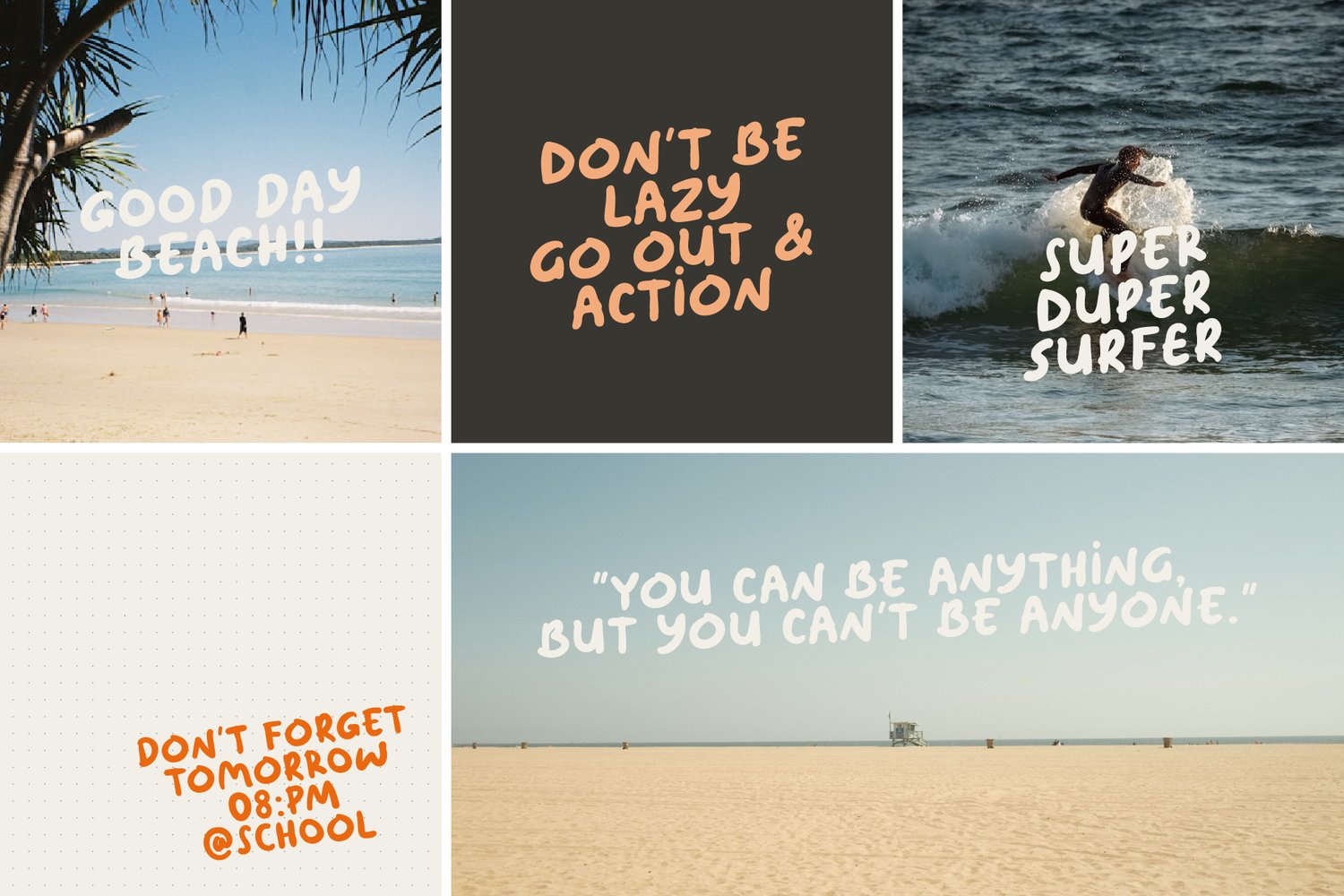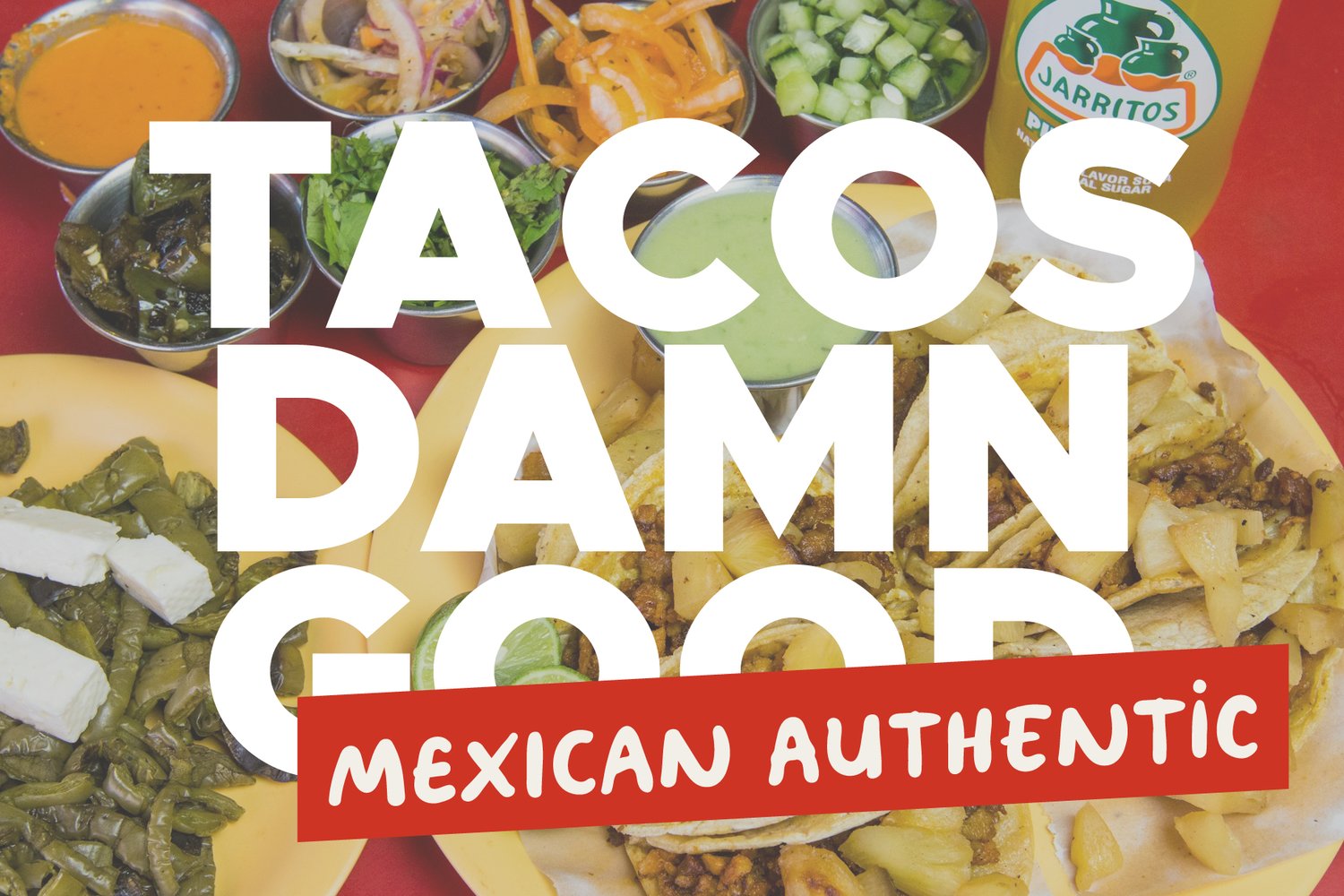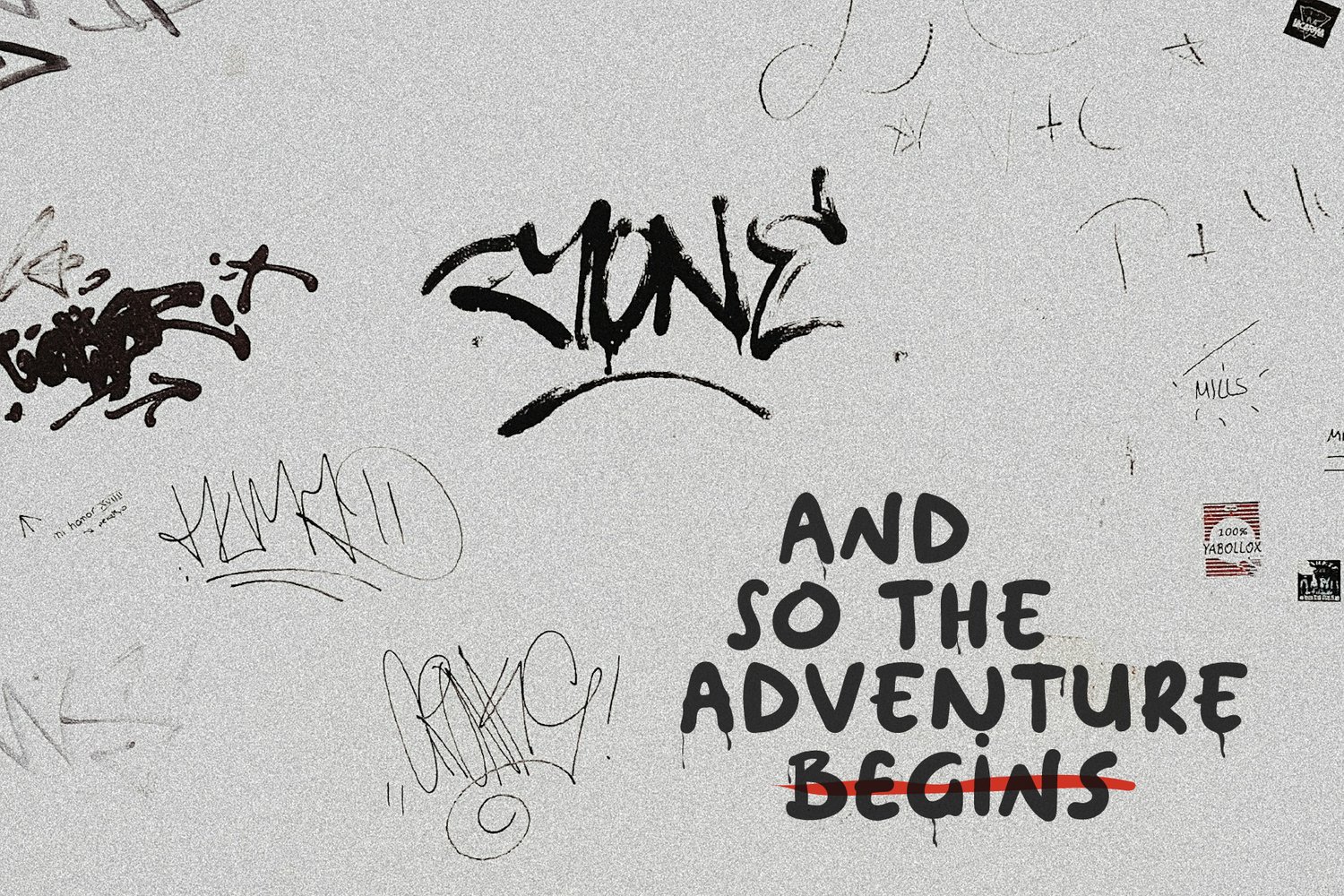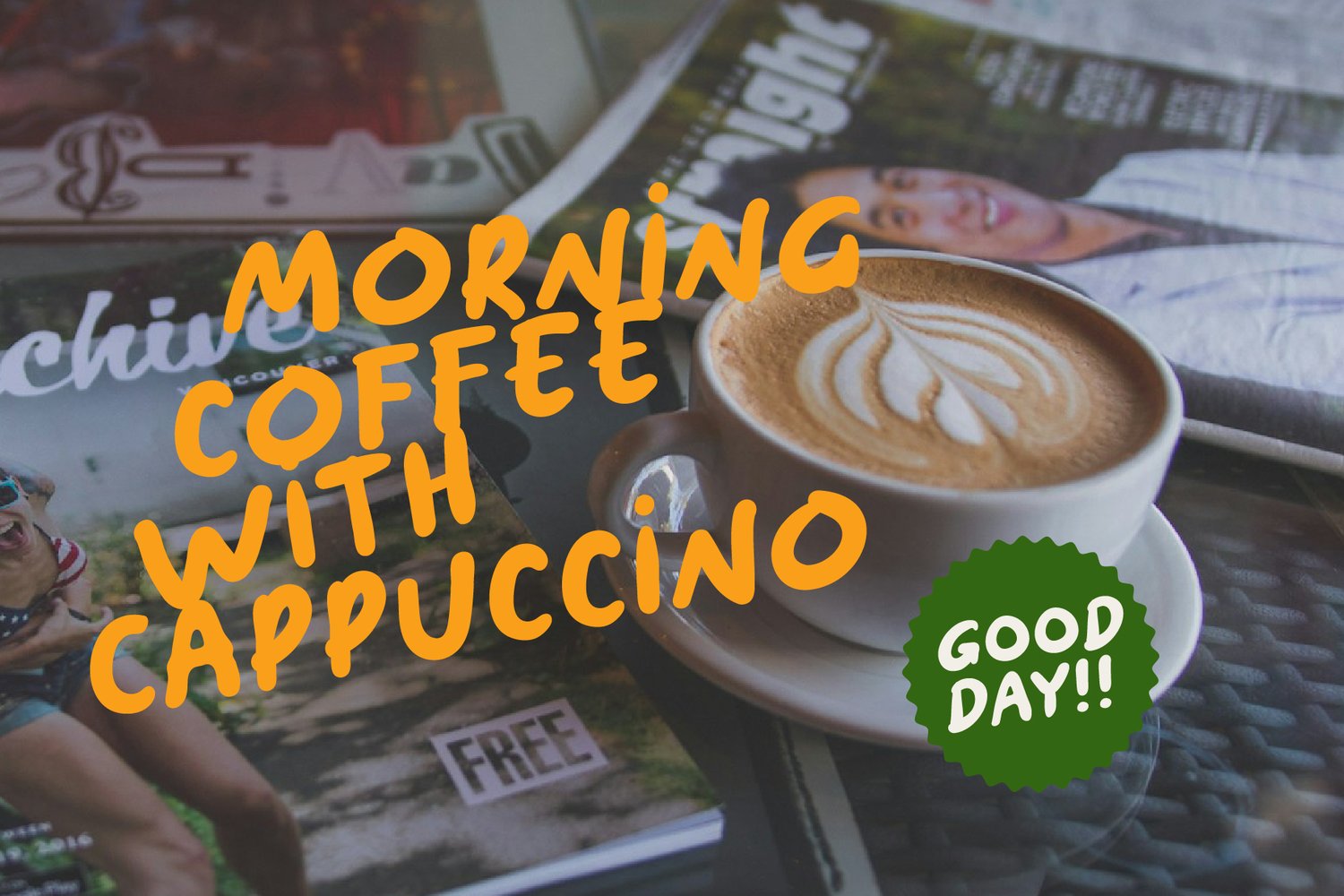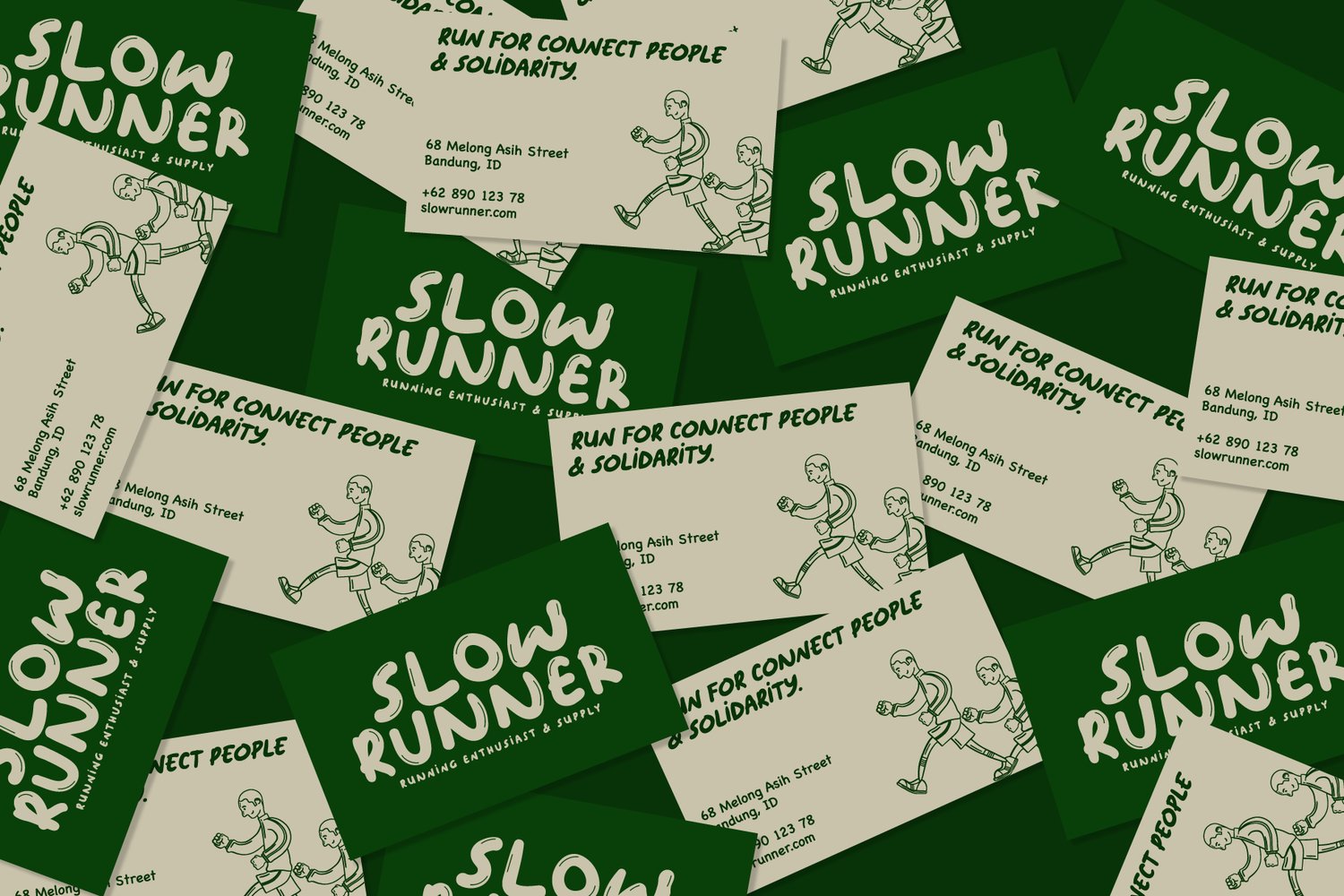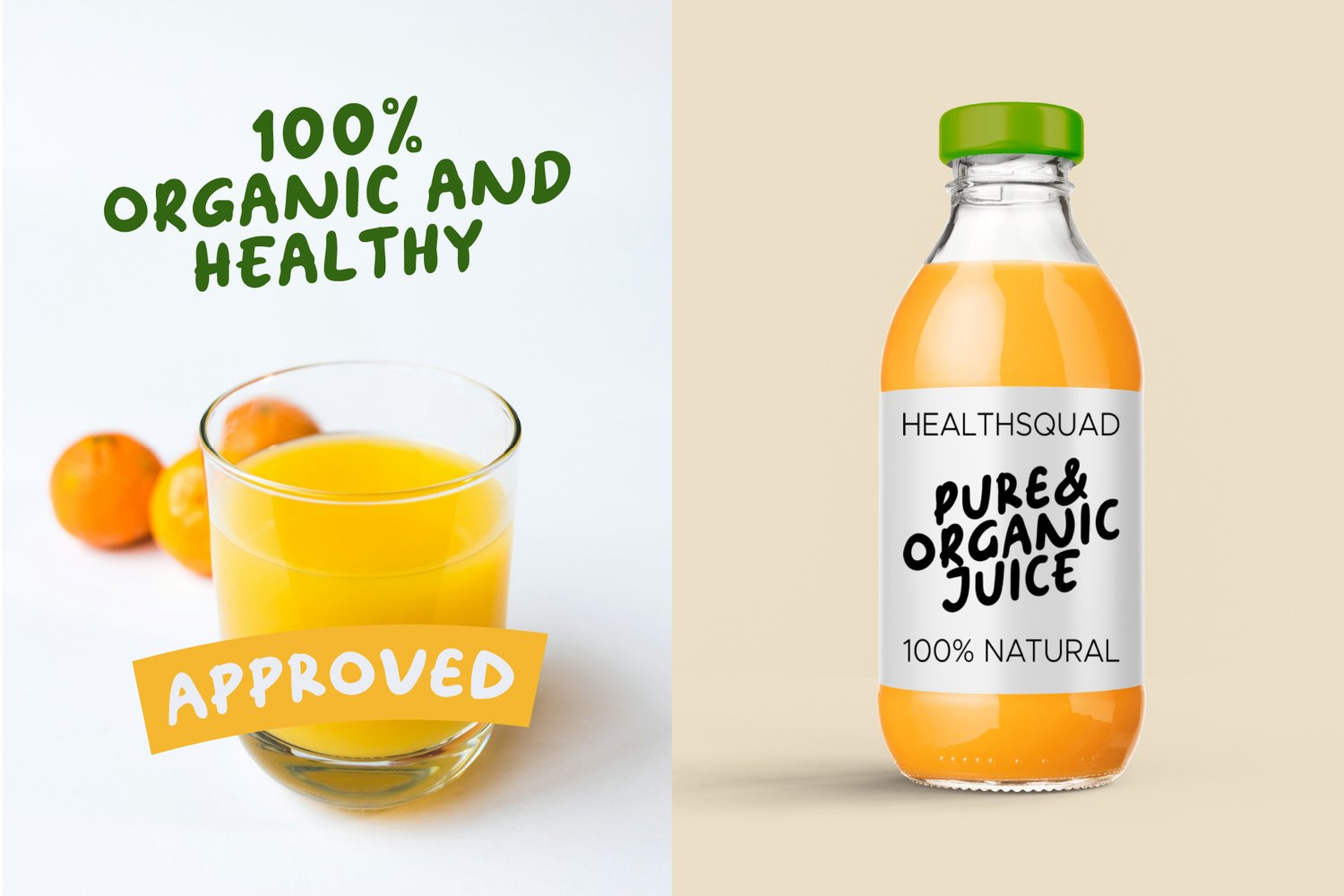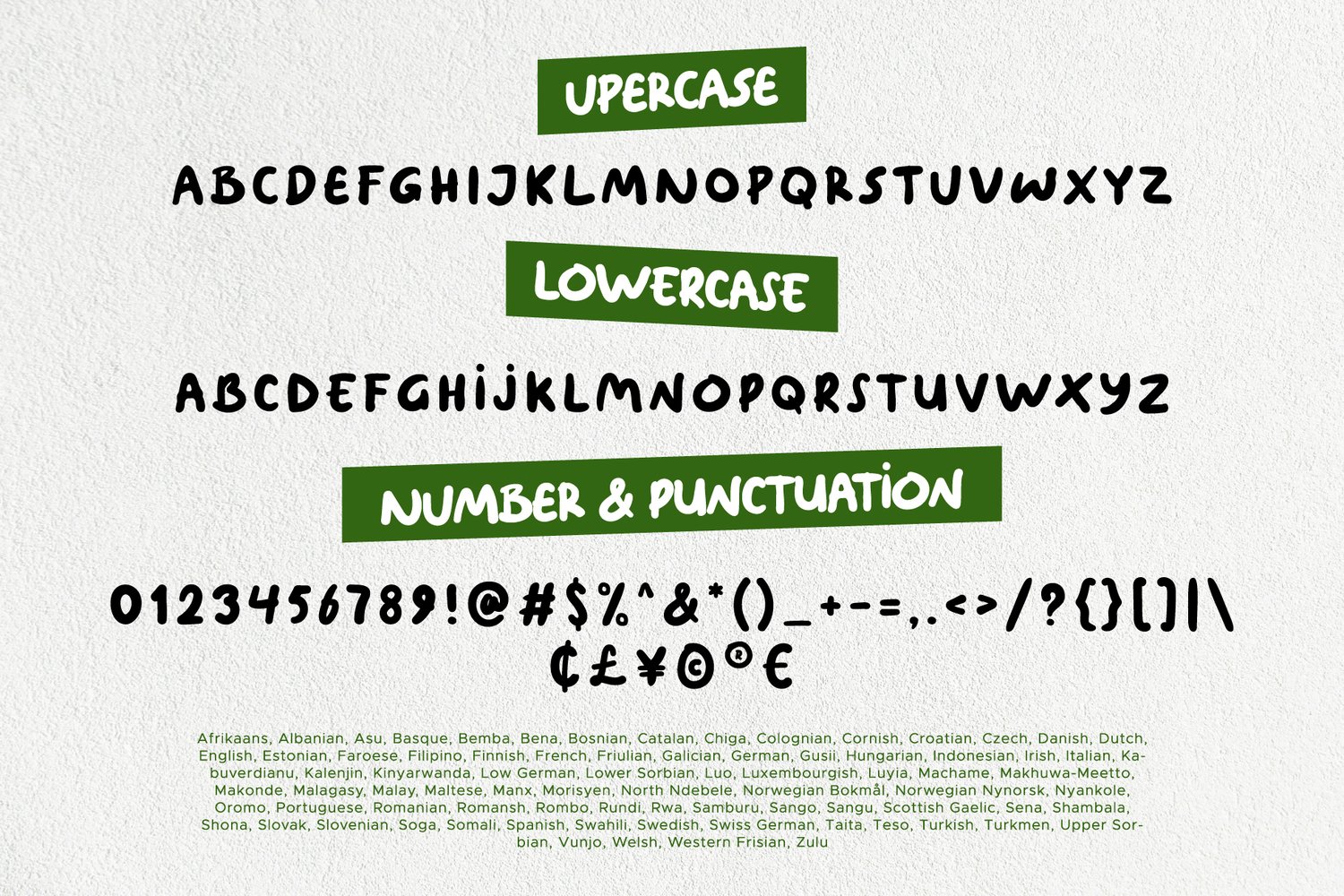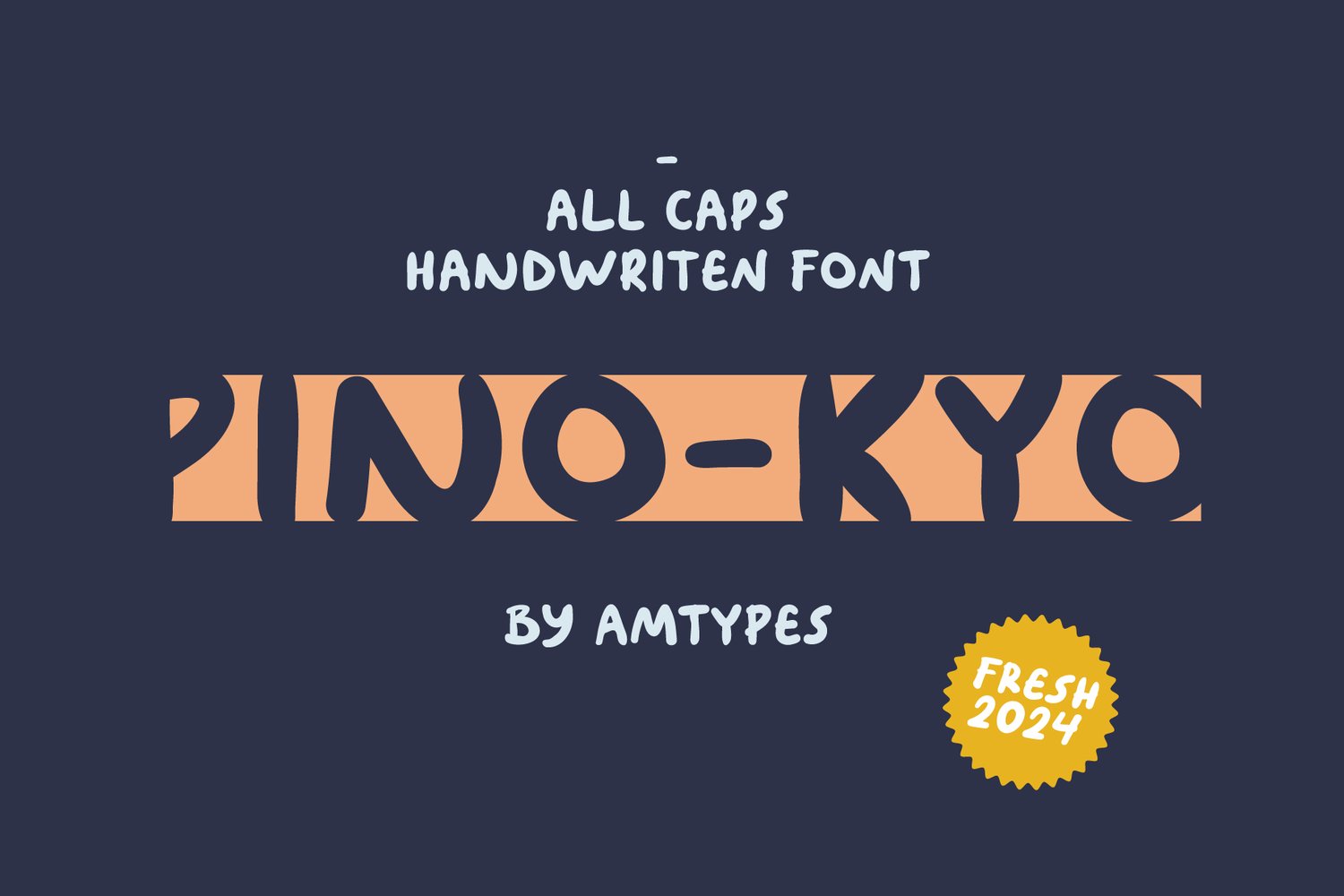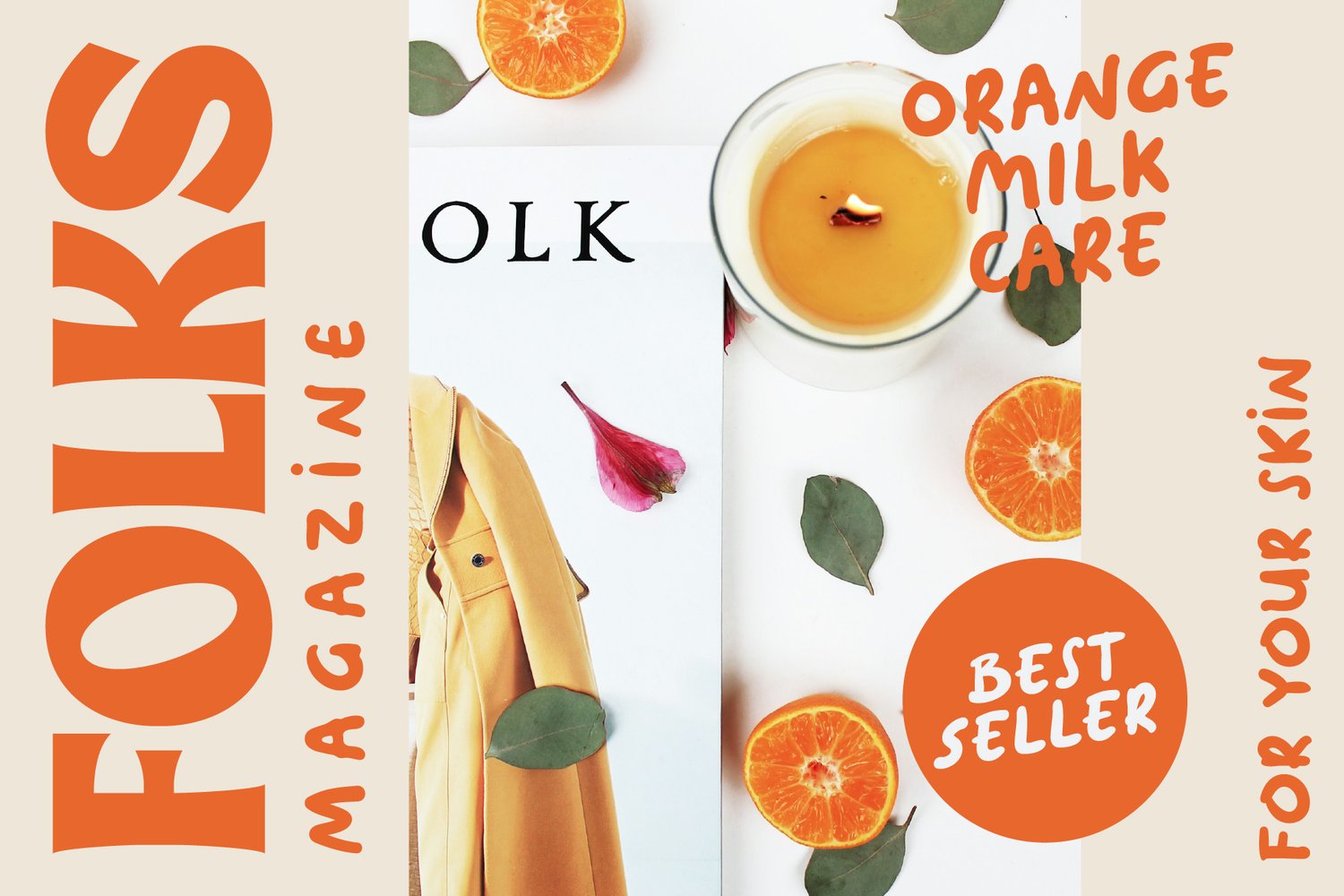
Pino-Kyo
Pinokyo is a playful and charming sans serif handwriting font that is perfect for creating a warm and inviting atmosphere. With its thick strokes and rounded edges, Pinokyo is reminiscent of children's handwriting, making it a great choice for projects that target a younger audience.
This font is also highly versatile and can be used for a variety of purposes, such as headings, body text, and even logos. Whether you're creating a children's book, designing a greeting card, or crafting a social media post, Pinokyo is sure to add a touch of personality and charm to your work.